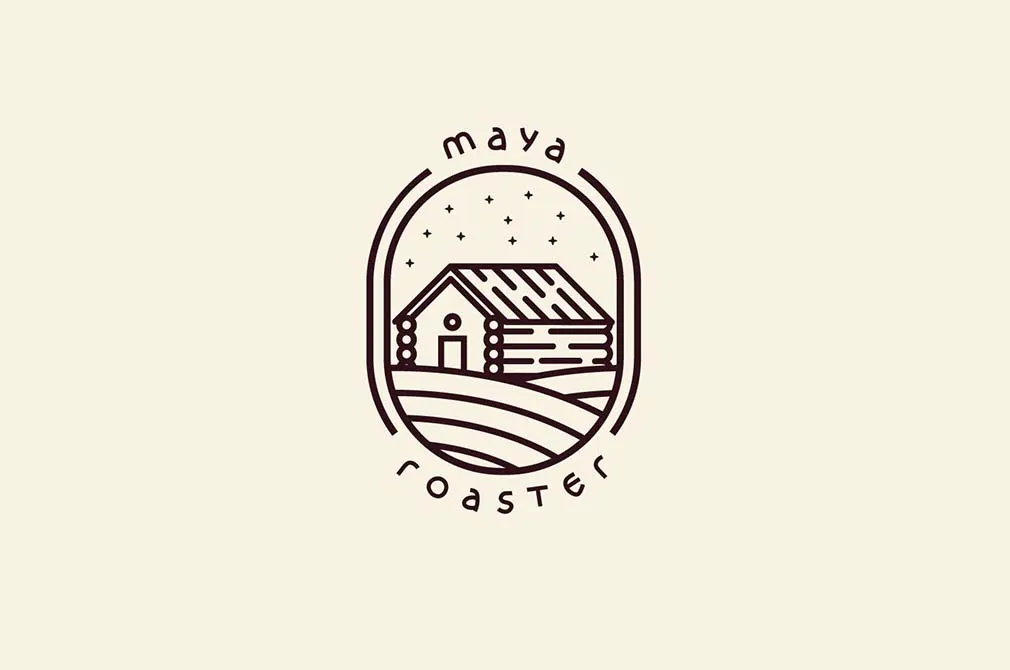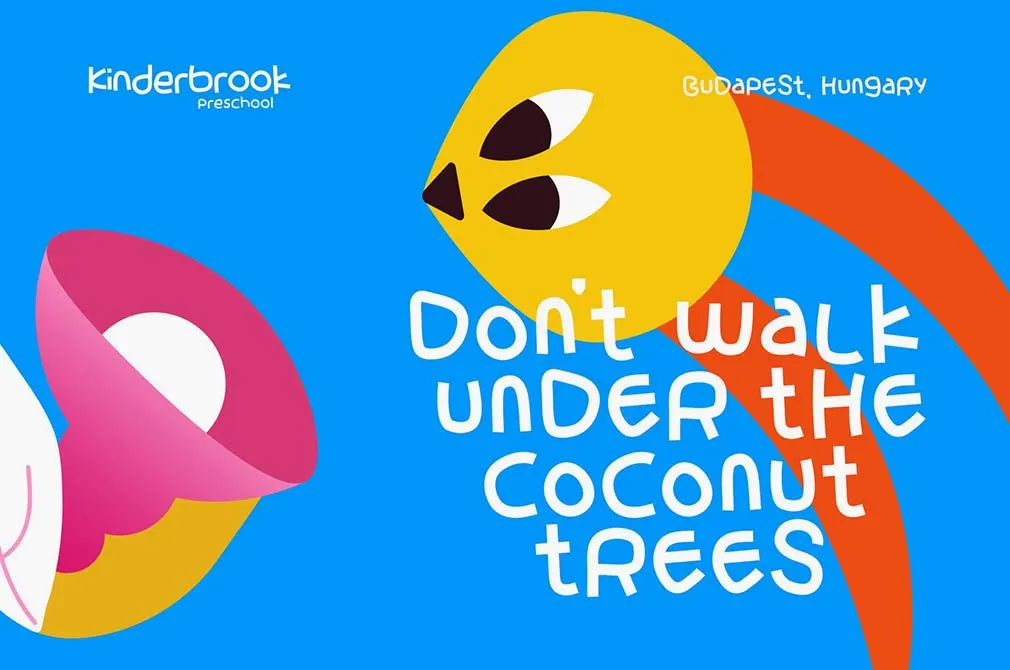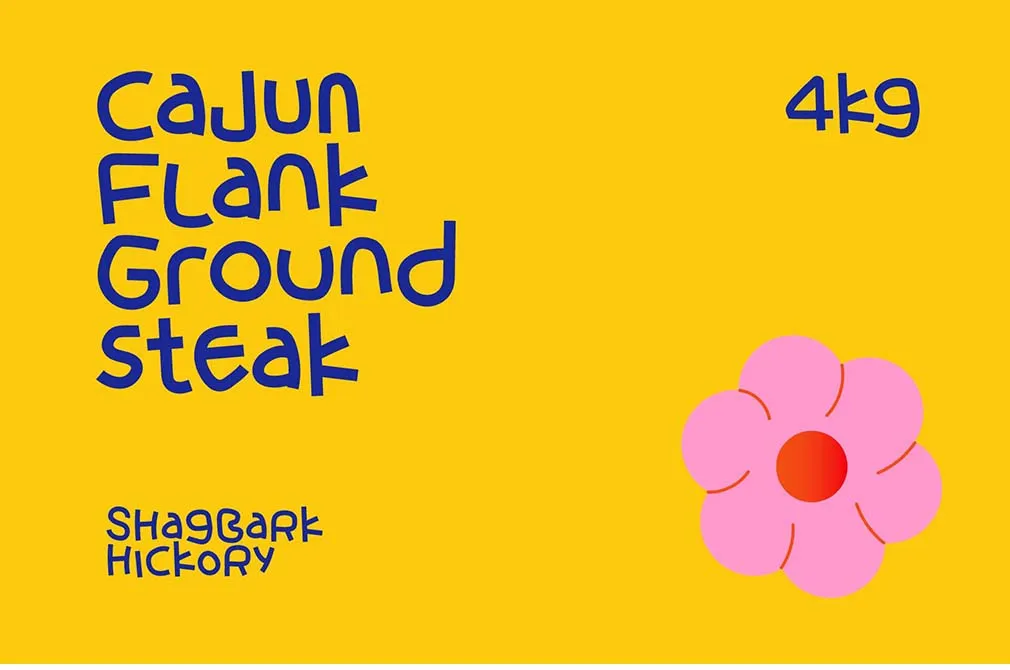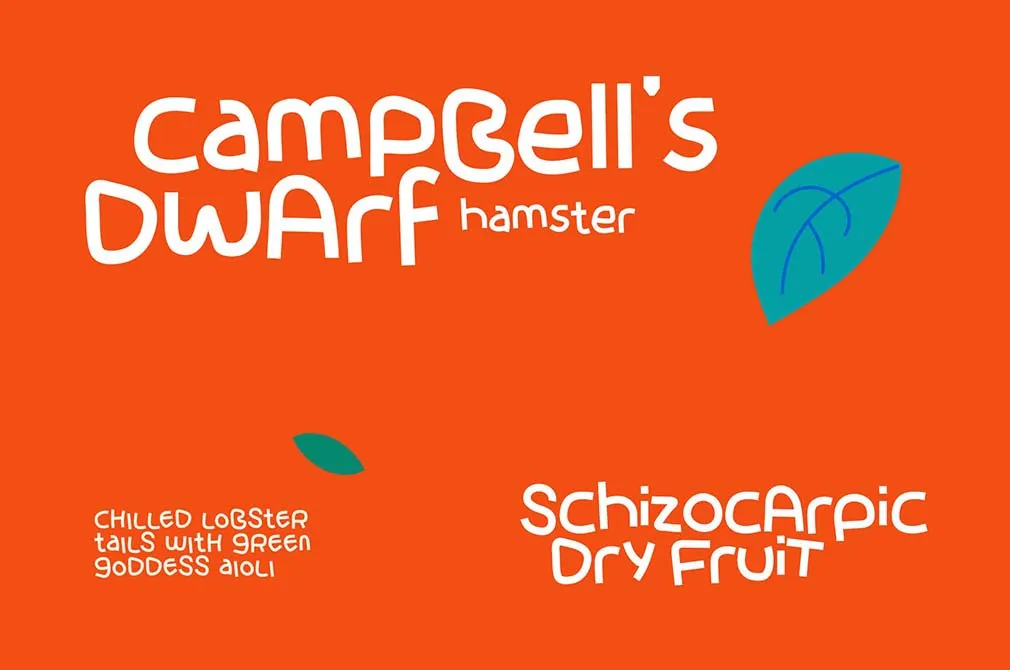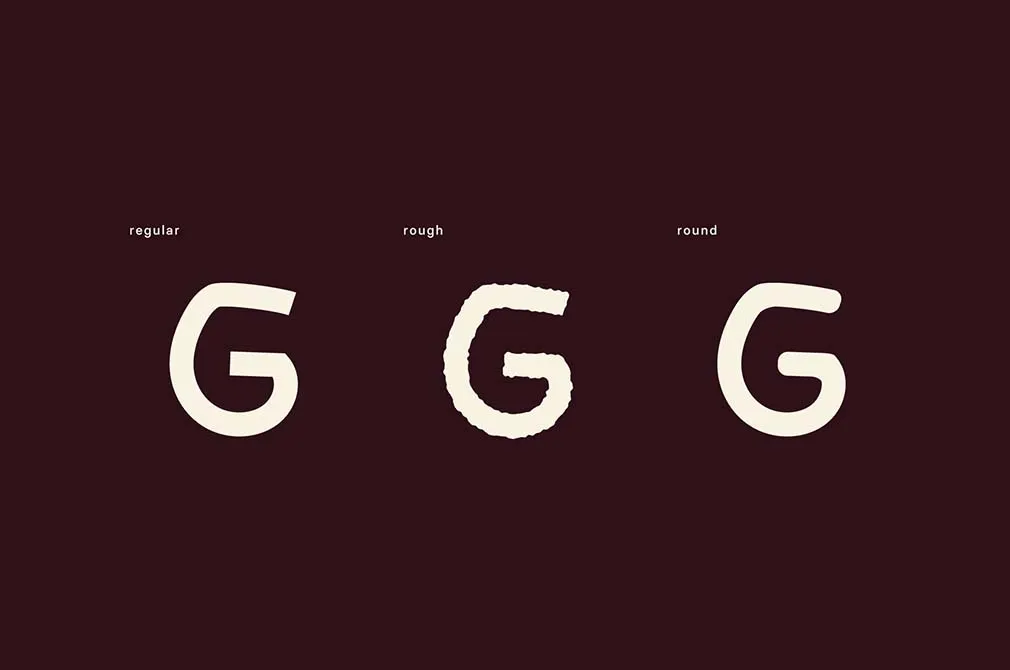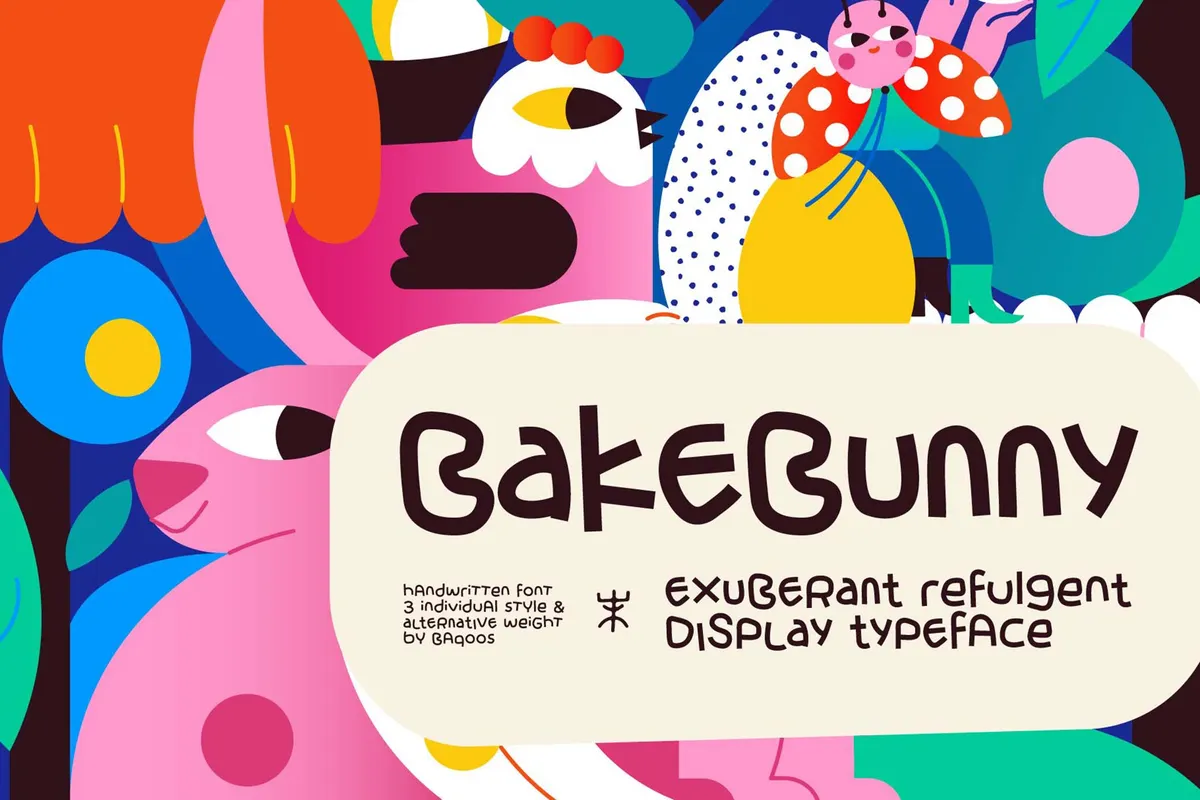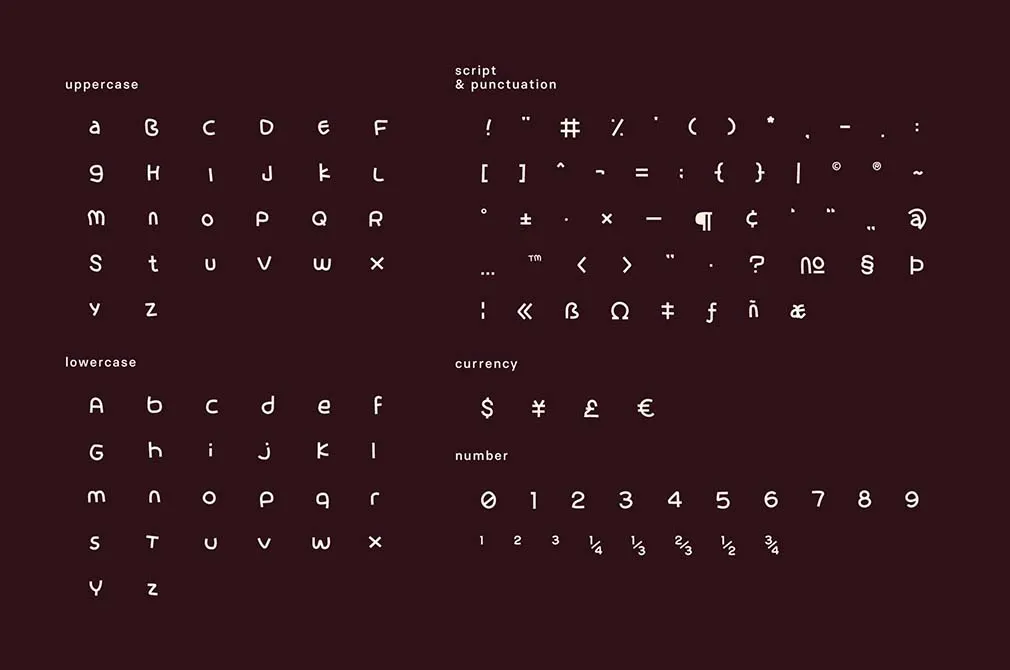
Bake Bunny Font
This handwritten font is a merry carousel of letters, swirling with a playful spirit and mischievous charm that beckons a second glance.Imagine diving into a world where each word you craft exudes joy and creativity. The Bake Bunny Font promises just that — an enhancement to your designs, making them irresistibly delightful. With a vast array of 200+ glyphs encompassing punctuation and numerals, the versatility is as enchanting as its playful vibe. From invitations to brand logos, embrace a font that speaks and giggles, skips, and hops on the canvas of your imagination.